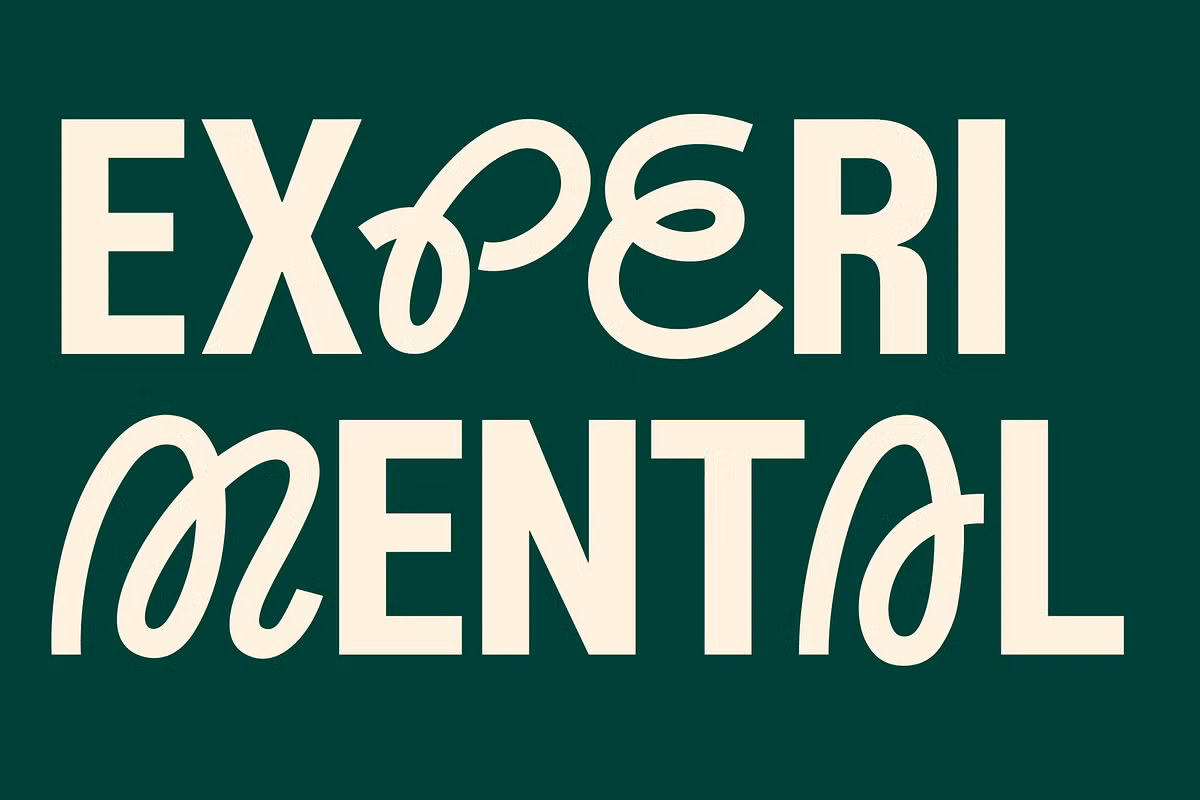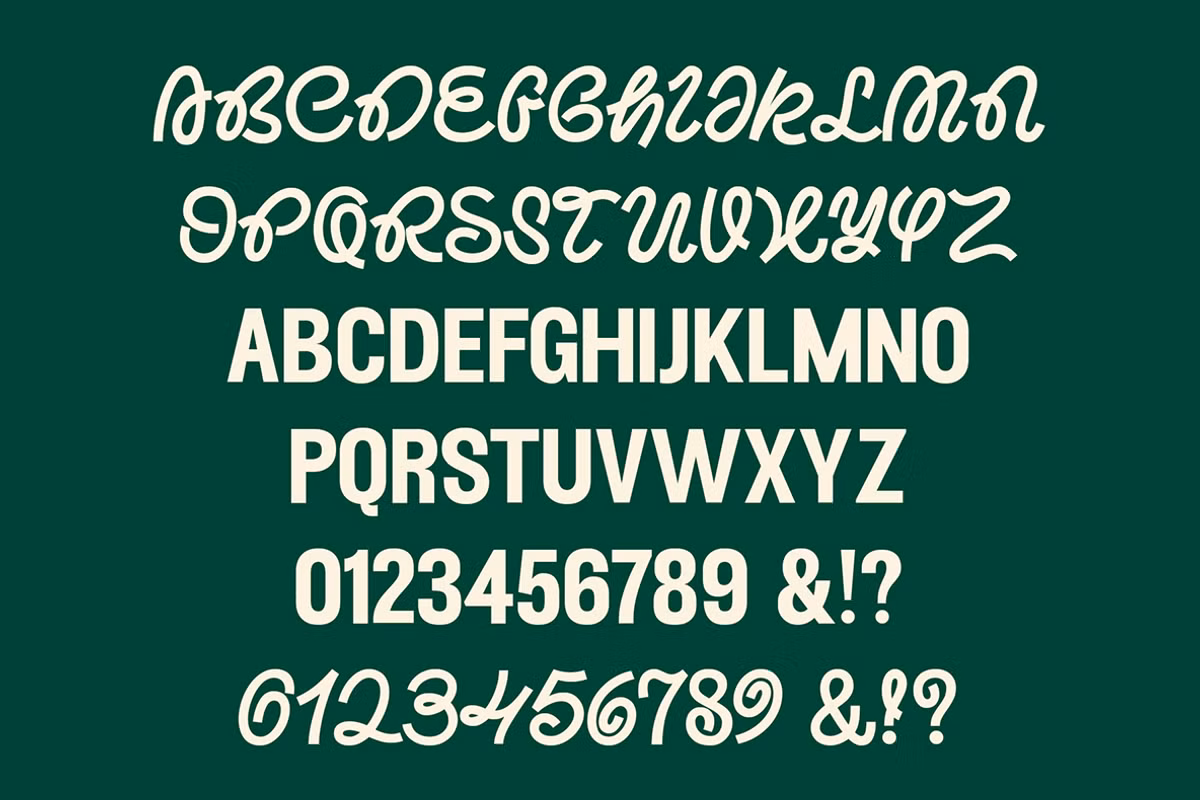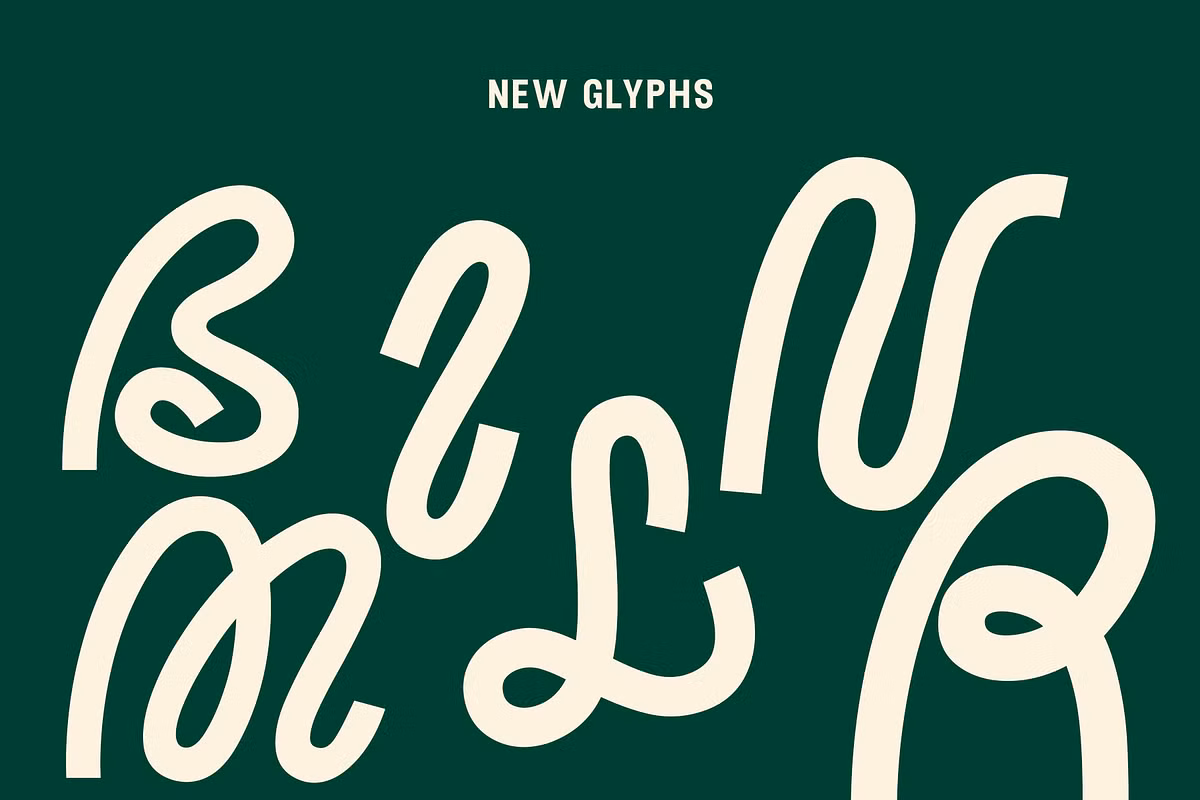
ED Nimpkish – Combination Typeface: Unique Experimental Font for Design
Introduction to ED Nimpkish
ED Nimpkish is a combined font. ED Nimpkish mixes two typefaces. The mix gives ED Nimpkish a look that feels both new and flexible. I have used ED Nimpkish on a logo and, on a poster. The look of ED Nimpkish works well in design jobs. I think ED Nimpkish can fit a range of projects. When I try ED Nimpkish on a website the two styles blend in a way that catches the eye. ED Nimpkish feels like a tool, for any designer.
Design Style of ED Nimpkish
When I look at the design of ED Nimpkish I see a mix of two styles. The design of ED Nimpkish puts together a display typeface and a simple sans serif font. The design of ED Nimpkish lets the typeface feel modern and artistic at the time. The design of ED Nimpkish works for headlines and, for body text. The design of ED Nimpkish gives designers a chance to try ideas that a normal font would not let them try.
The experimental nature of ED Nimpkish encourages creativity. The mix of display and sans features lets ED Nimpkish work, in media. ED Nimpkish feels fresh. Whether you are aiming for a look or a serious tone ED Nimpkish adapts easily to your vision.
Character Sets and Features
ED Nimpkish has features that make ED Nimpkish easy to use. The total glyph count of ED Nimpkish is 357. ED Nimpkish includes a set of characters that covers letters, lowercase letters, punctuation marks and symbols. The large range of characters gives the user the tools to create designs with no limits. I like how ED Nimpkish lets me work quickly.
One of the features of ED Nimpkish is the characters and ligatures. When I work on a design I rely on the characters and ligatures. The alternative characters and ligatures let me make the text look the way I want for my projects. The stylistic sets give me variations. The stylistic sets add style to my typography.
I have found that ED Nimpkish supports languages. That makes ED Nimpkish a practical choice, for the projects. When you are designing for the audience or the global client ED Nimpkish makes the message clear and effective.
Use Cases for ED Nimpkish
I have found that ED Nimpkish is flexible. ED Nimpkish fits design applications. Here are some common use cases, for ED Nimpkish:
- Poster Design: ED Nimpkish has display traits that make it ideal, for eye catching posters. I use ED Nimpkish for the events the exhibitions or the artistic projects. ED Nimpkish draws attention. Captivates viewers.
- Logo Design: When I use the mix of styles, in ED Nimpkish I can create logos that stand out in a crowded market. The flexibility of ED Nimpkish helps me convey my brand’s identity clearly.
- Branding: If you run a business and you want a identity I recommend ED Nimpkish. ED Nimpkish gives a look. The look works the same on all branding items.
- Social Media Design: In the age strong visuals help media engagement. I have seen strong visuals make a difference. ED Nimpkish improves your posts, your stories, your advertisements and helps you connect with your audience.
- Book and Magazine Covers: The font works well for design. The font adds a flair. The font can improve the look of book and magazine covers.
Pairing Suggestions for ED Nimpkish
To get the results, with ED Nimpkish in your designs I pair ED Nimpkish with matching fonts. Here are some pairing suggestions that can improve your typography:
- Serif Fonts: I pair ED Nimpkish with a serif font such, as Times New Roman or Georgia. ED Nimpkish and the classic serif font create contrast, between design and traditional design.
- Minimalist Sans-Serif Fonts: I like to pair ED Nimpkish with minimalist sans-serif fonts such, as Helvetica or Open Sans when I want a look. The minimalist sans-serif fonts keep the text readable. Let ED Nimpkish shine. ED Nimpkish and the fonts work well.
- Handwritten Fonts: I think a personal touch comes from pairing ED Nimpkish with a font. When you pair ED Nimpkish with a font the result feels more personal and approachable. The handwritten font creates an warm aesthetic. The inviting and warm aesthetic works, for projects.
To sum up ED Nimpkish is a font that lets the designers try things. ED Nimpkish offers the set of characters. Can fit the many kinds of projects. If you are working on your brand, a media graphic or an editorial layout ED Nimpkish can make the work stand out. I have used ED Nimpkish and ED Nimpkish helped me bring my ideas to life. ED Nimpkish works. Do not wait to try ED Nimpkish. See what ED Nimpkish can do for the designs.